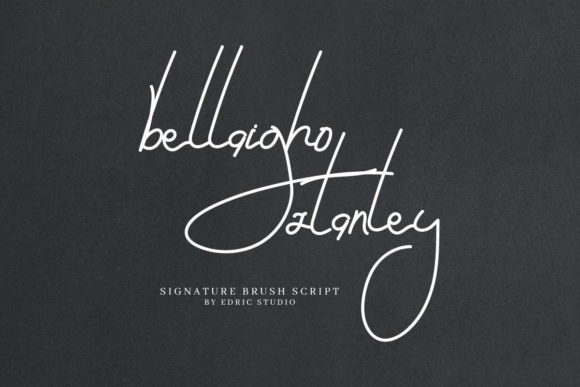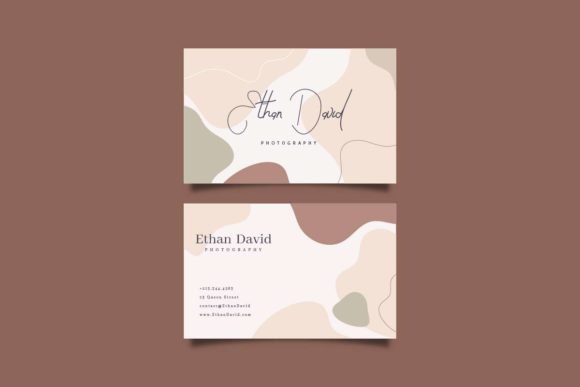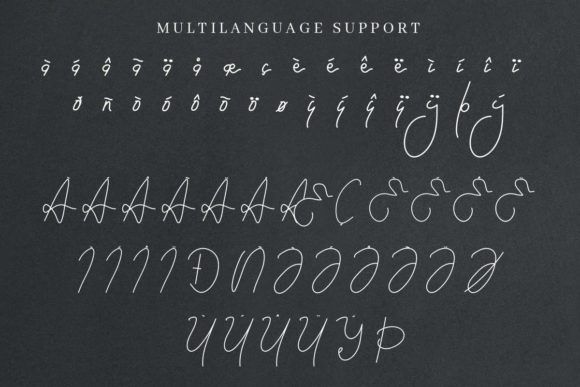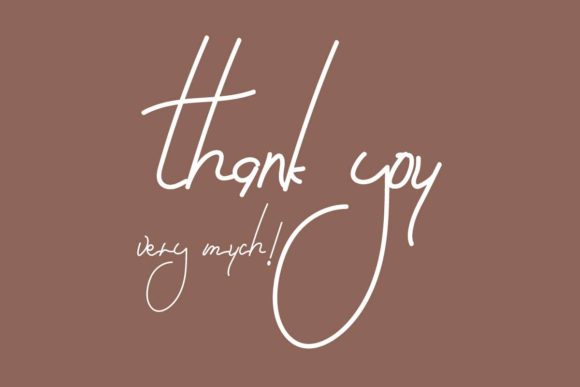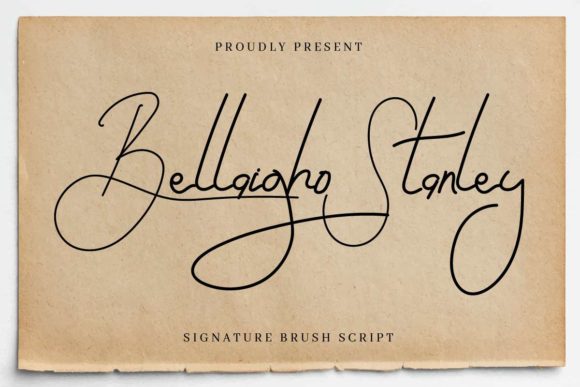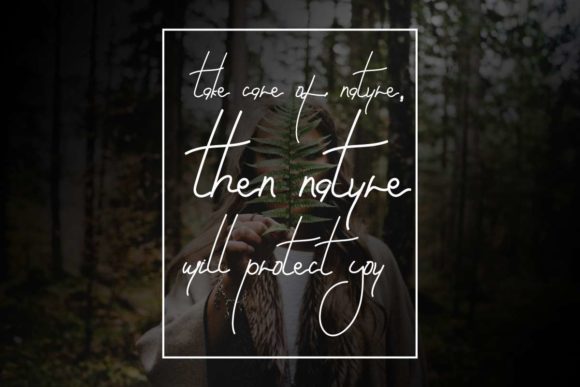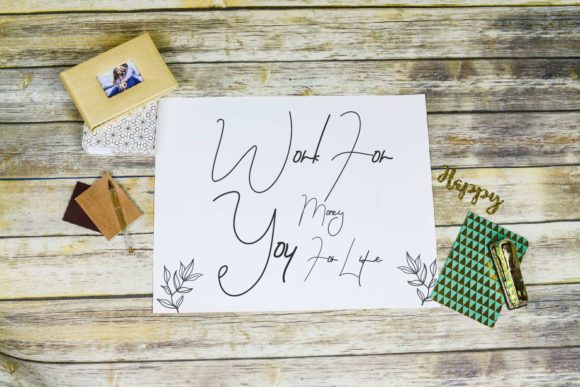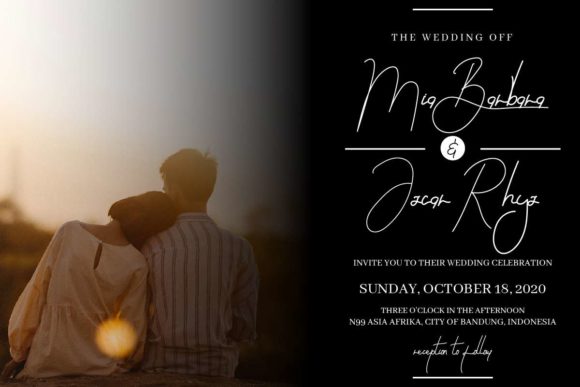
Bellaigho Stanley Font
About Bellaigho Stanley Font
Bellaigho Stanley is a lovely handwritten font, with unique characters, that will make your design projects unforgettable! This font offers abeautiful combination of timeless elegance and authentic calligraphy. Bellaigho Stanley will elevate a wide range of design projects to the highest level!